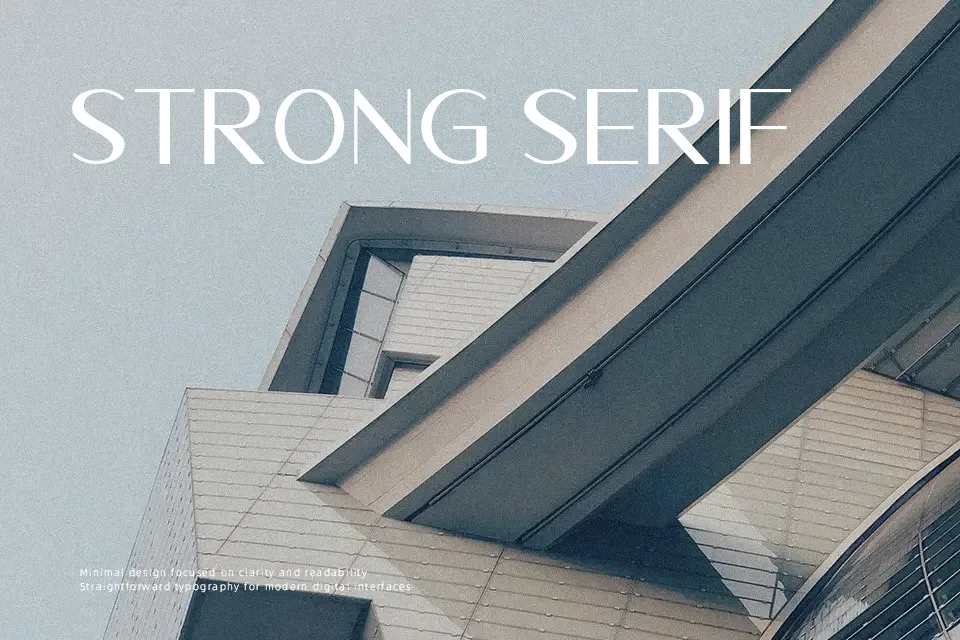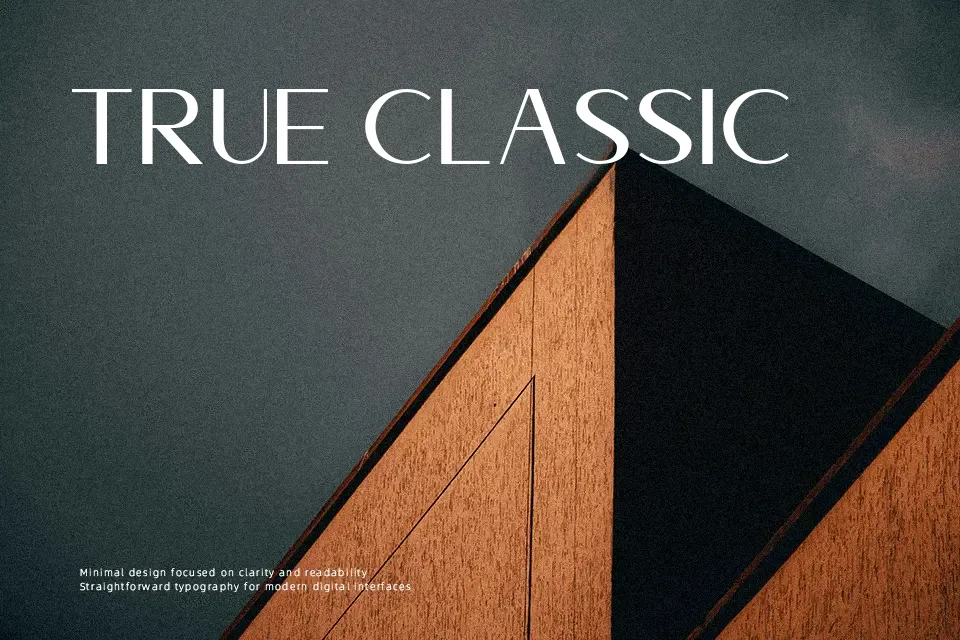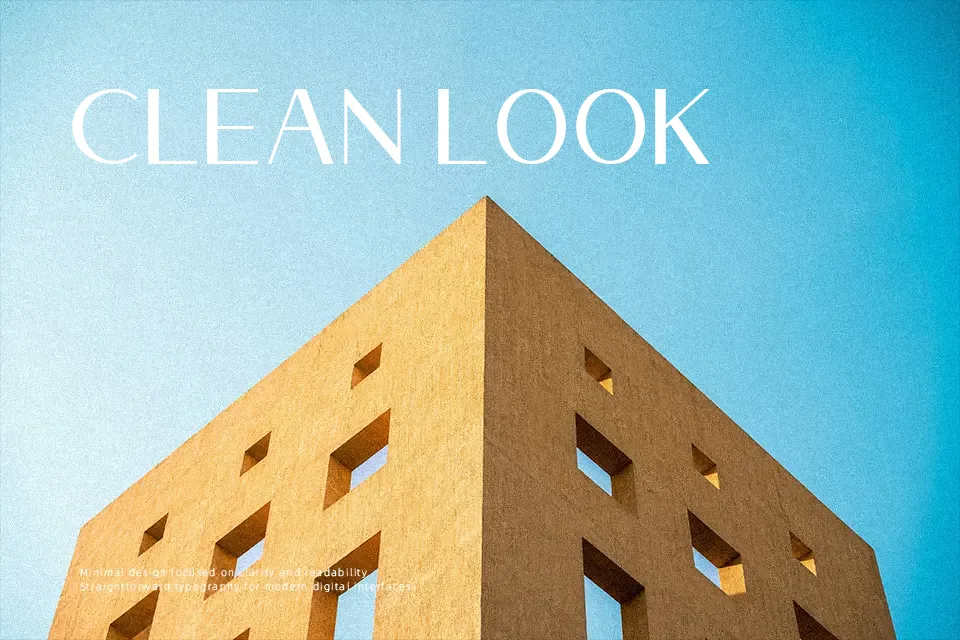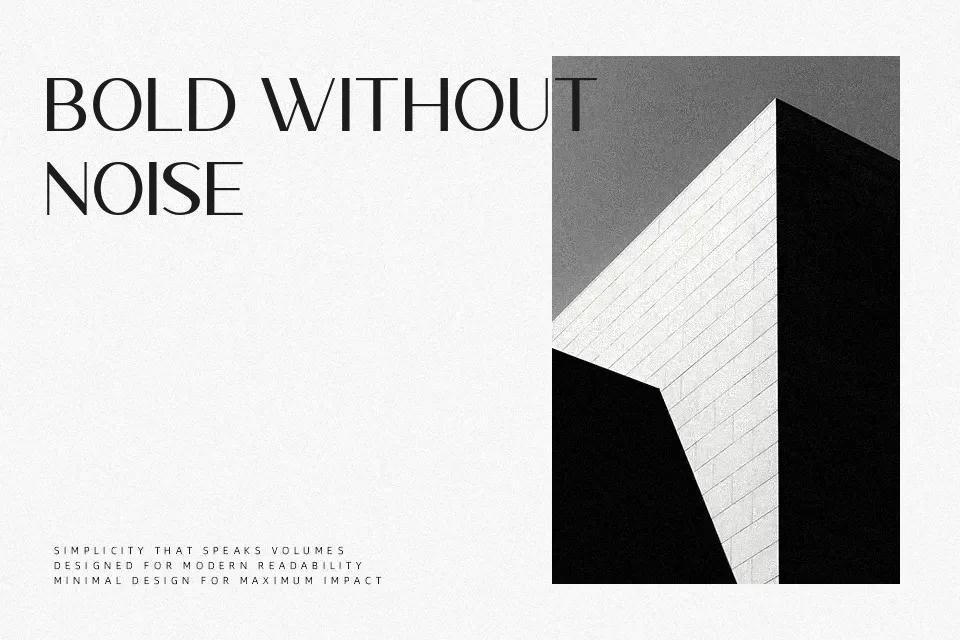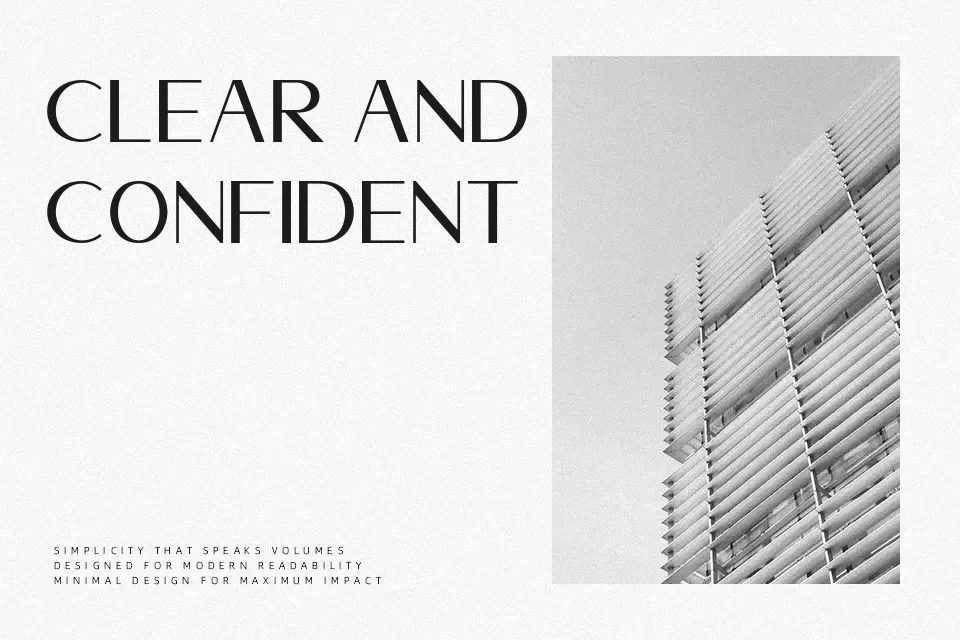
Abenda Font
Designed by Pen Culture
Abenda is an elegant sans serif display typeface by Pen Culture that merges clean geometric structure with a retro-inspired personality. The font features medium-contrast strokes, well-spaced letterforms, and a refined overall appearance that balances modern minimalism with a touch of classic style. Its upright, legible design makes it best suited for display-size applications rather than body text. Abenda performs well in logo design, brand identity, poster art, advertising, and editorial layouts. The typeface suits projects calling for a sophisticated yet distinctive visual tone, making it a versatile option for creative professionals in fashion, lifestyle, and branding.
Perfect for branding, headline, and logo, with a classic and display style.